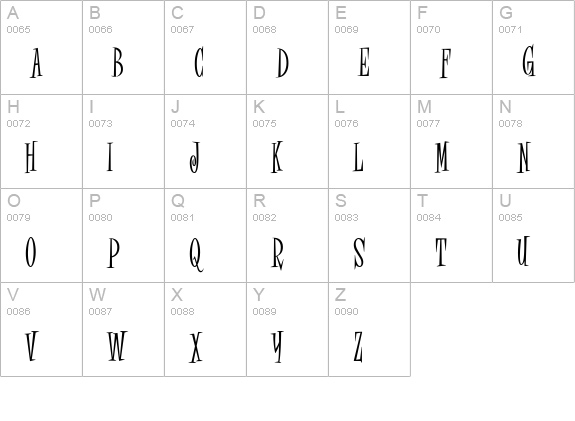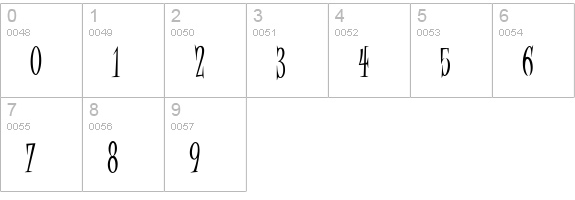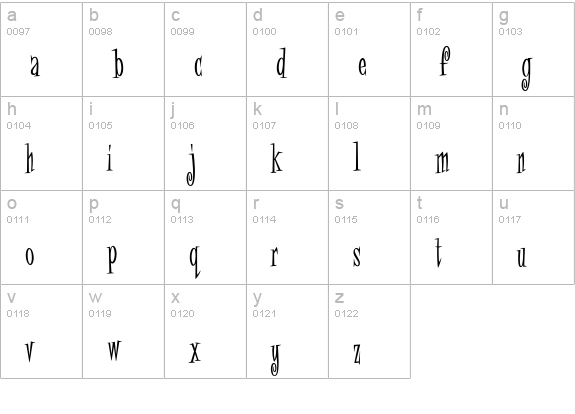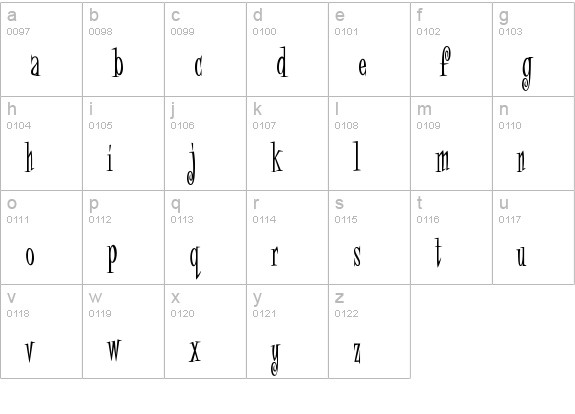
Fink Condensed is a distinctive, condensed-width variant in the Fink typeface family \xE2\x80\x94 well suited to design and typography projects.
Fink Condensed font is a sleek and modern typeface that exudes sophistication and elegance. With its clean lines and condensed design, this font is perfect for adding a touch of style to any project. The tall, slender letterforms of Fink Condensed make it ideal for headlines, logos, and other display purposes.